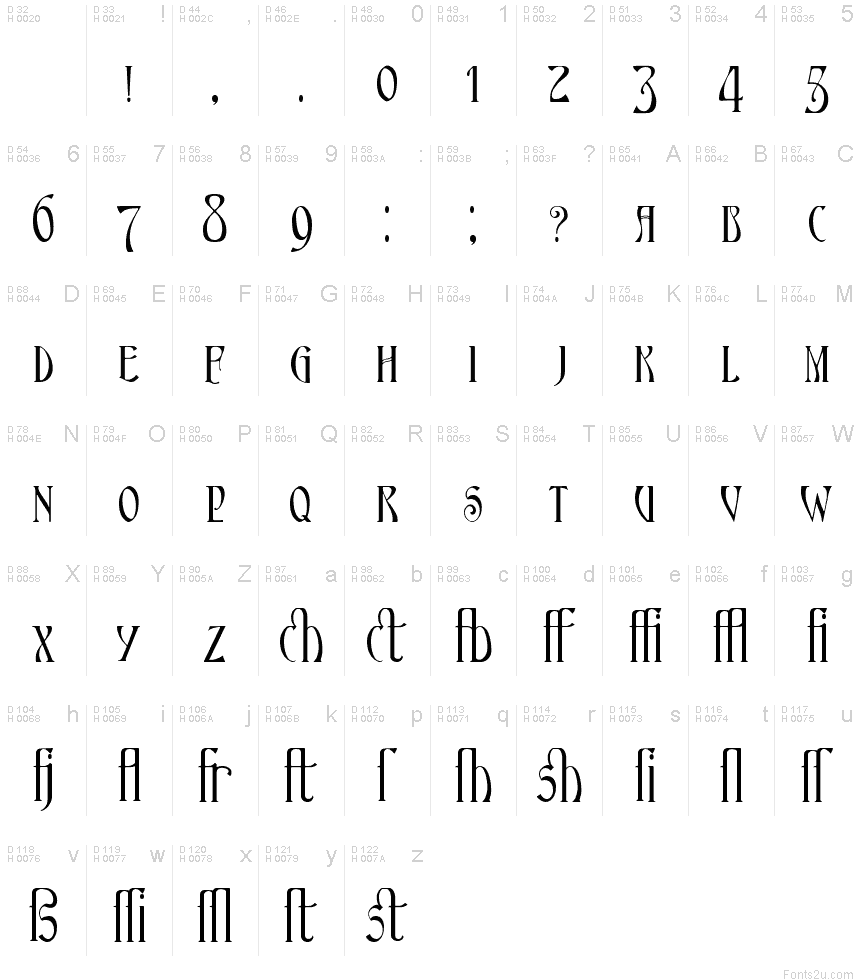
Ambrosia Ligature from Macromedia is a free ornamental display font built from dramatic thick-thin strokes and tightly interwoven letterforms. Tall loops, fine hairlines, and broad curved strokes give the lettering an elegant, slightly theatrical silhouette.
An invitation suite is a natural setting for its formal flourishes, with menus and event programs extending the same decorative theme. Fashion packaging also suits the narrow proportions and couture-like curves. In a logo, the linked letters can function almost like a custom monogram rather than ordinary text.
Small Caps and ligatures for Ambrosia